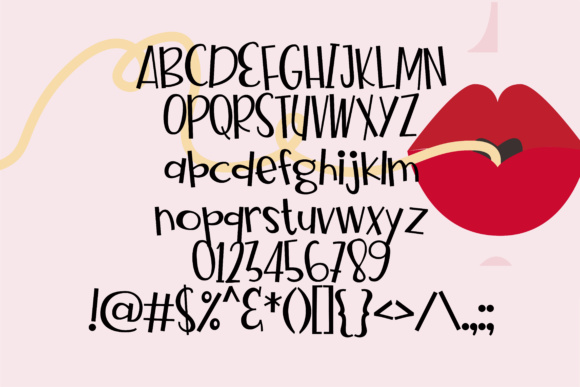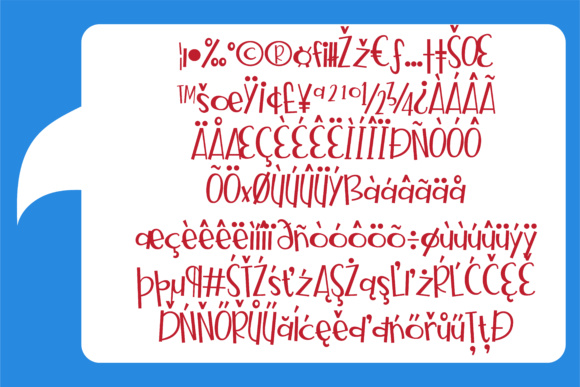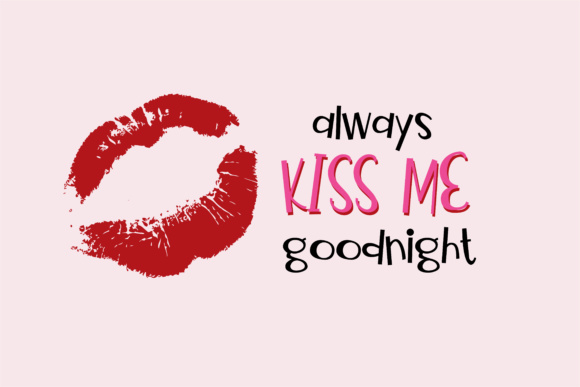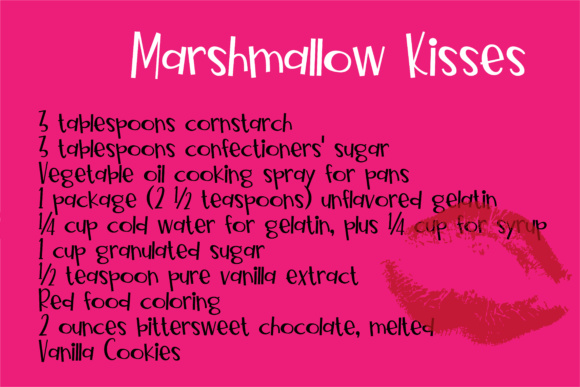
Canoodling Font
About Canoodling Font
Canoodling is a whimsical and fun font with toggled letters for a youthful and clean look. This font is heavily reminiscent of retro font styles, so it can add a lot of style and referential appeal to your projects.